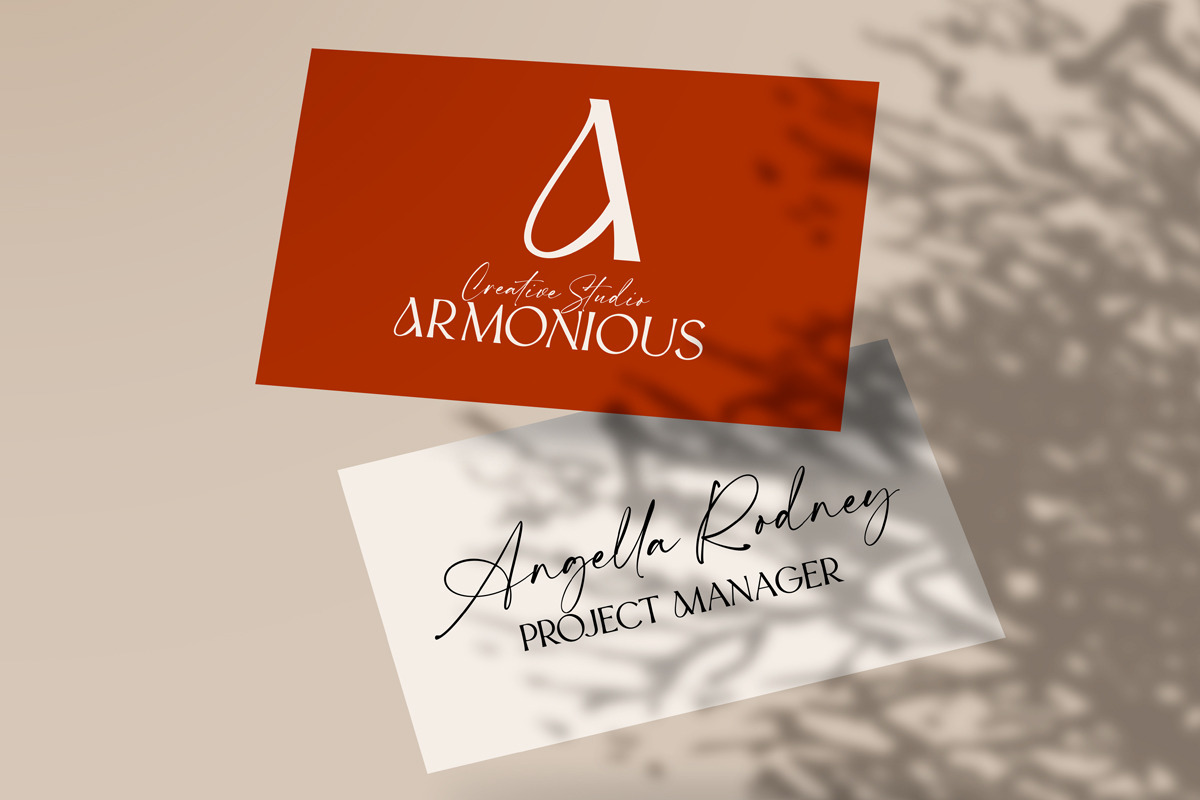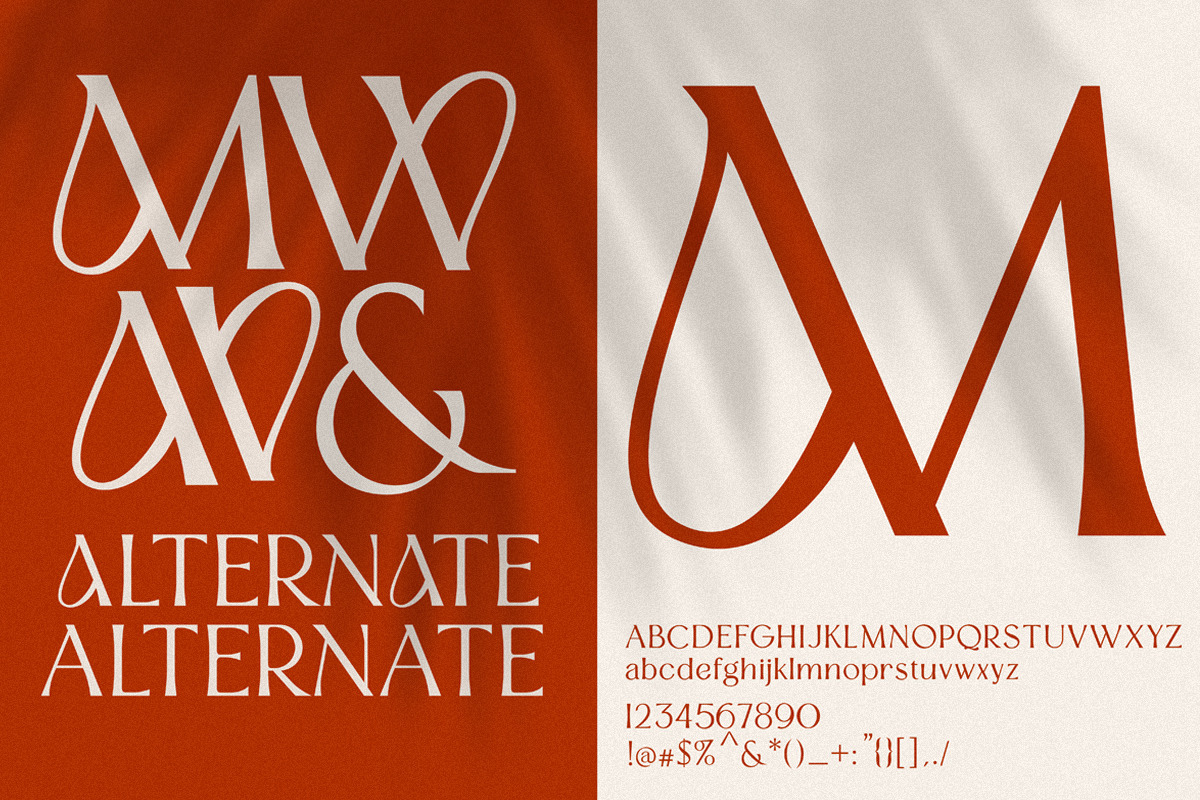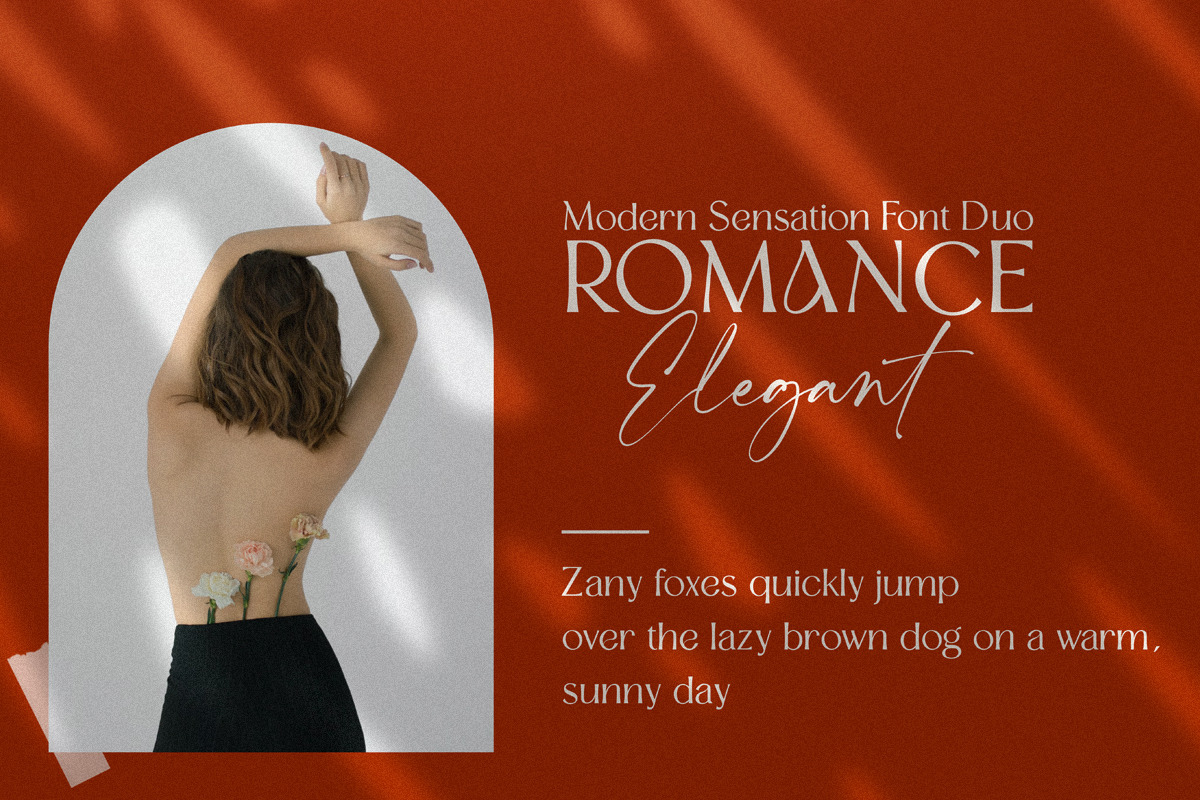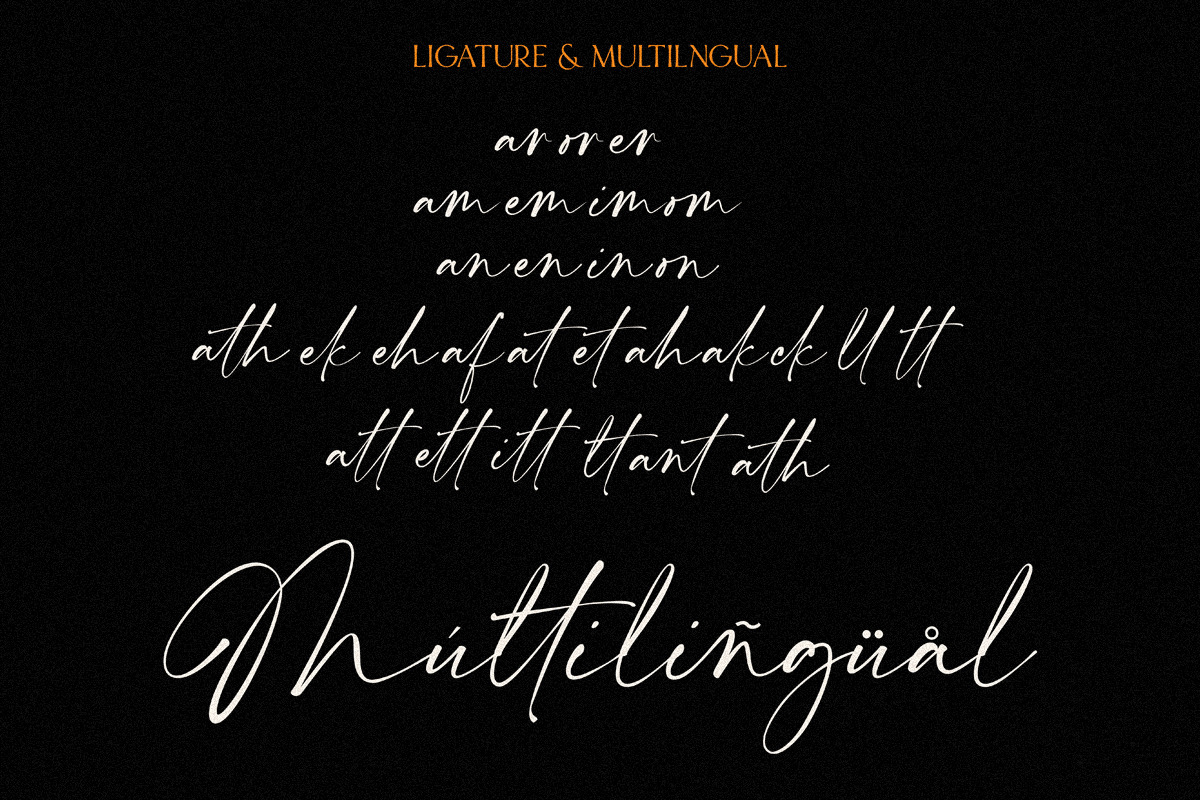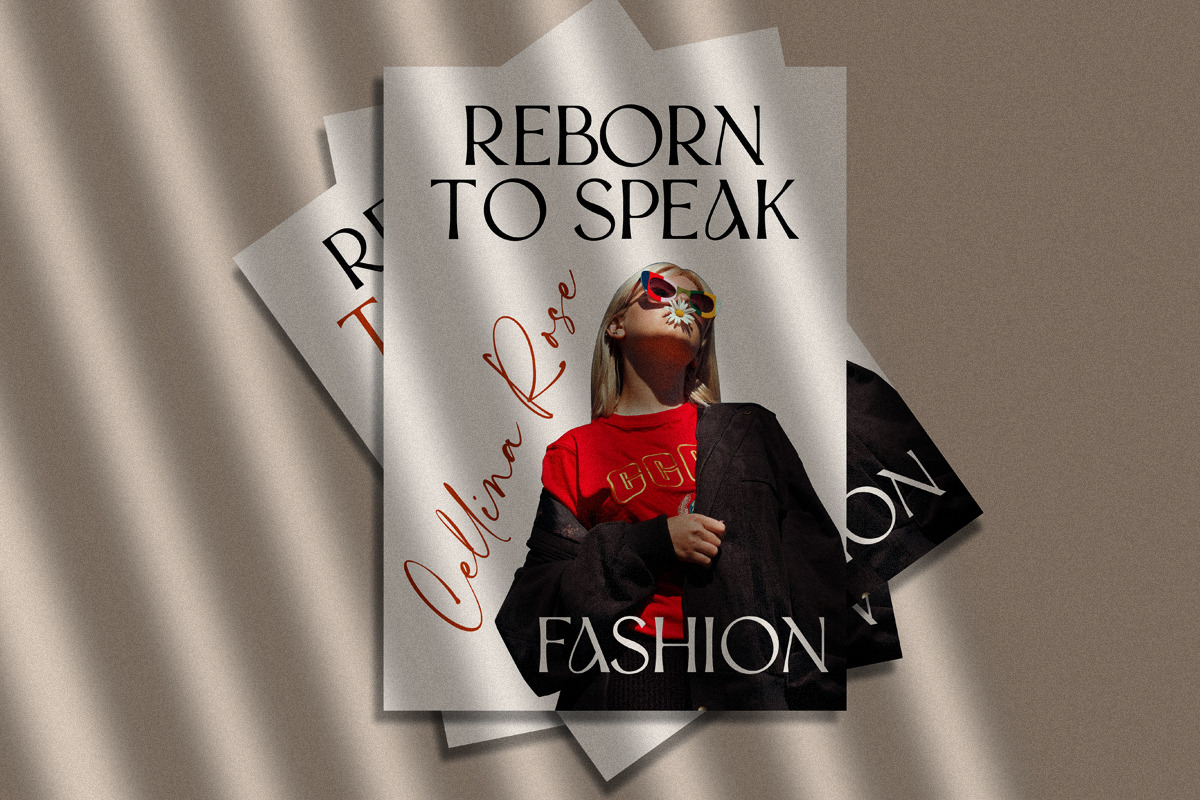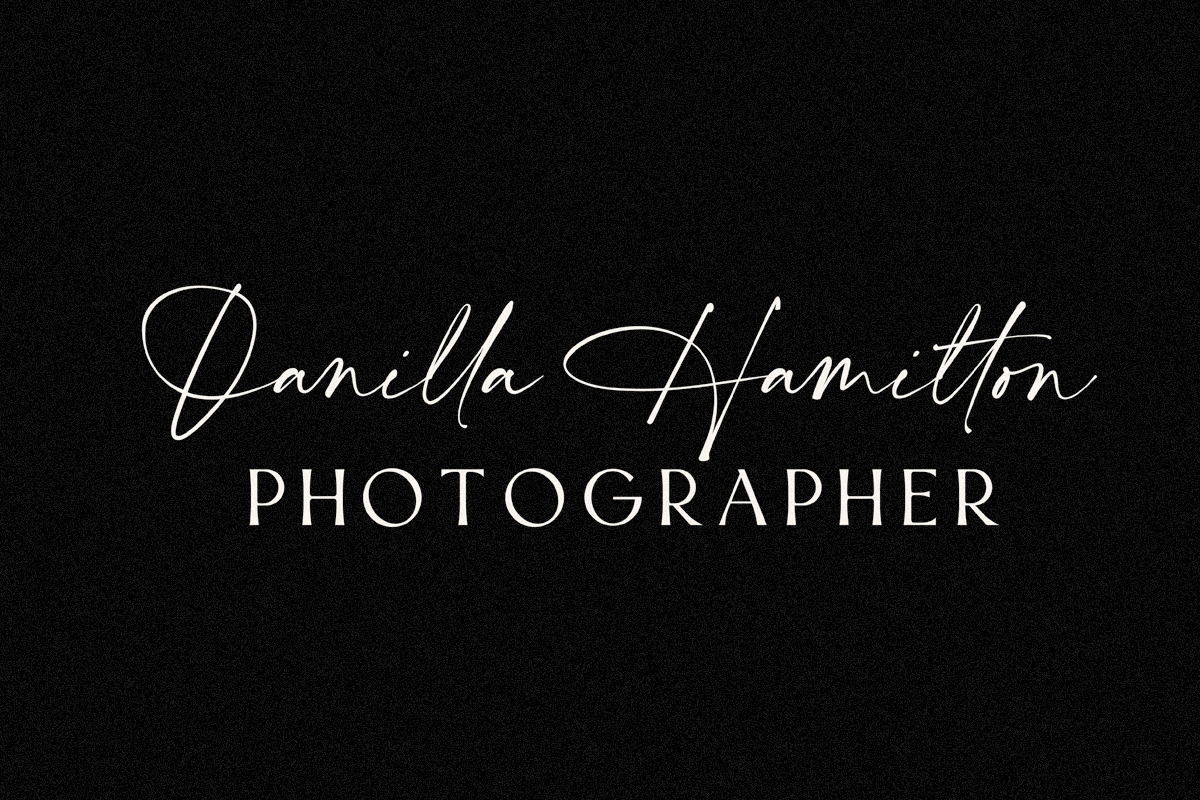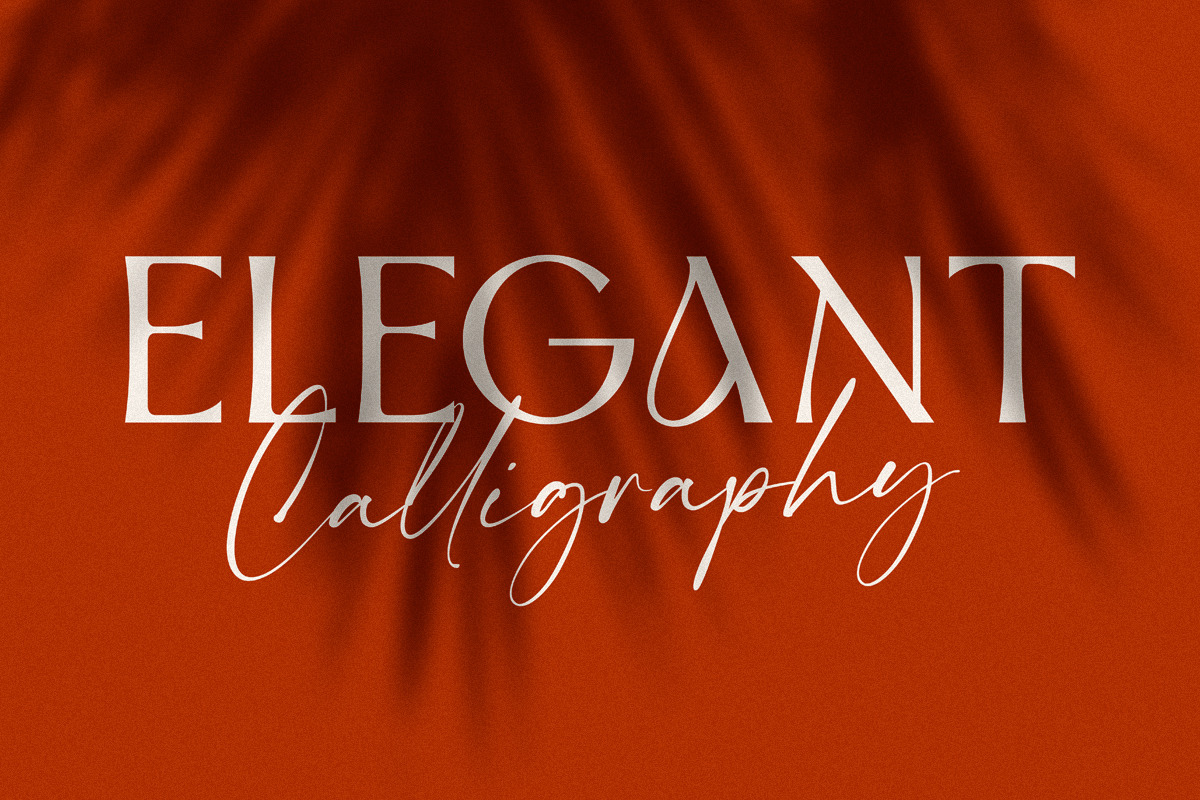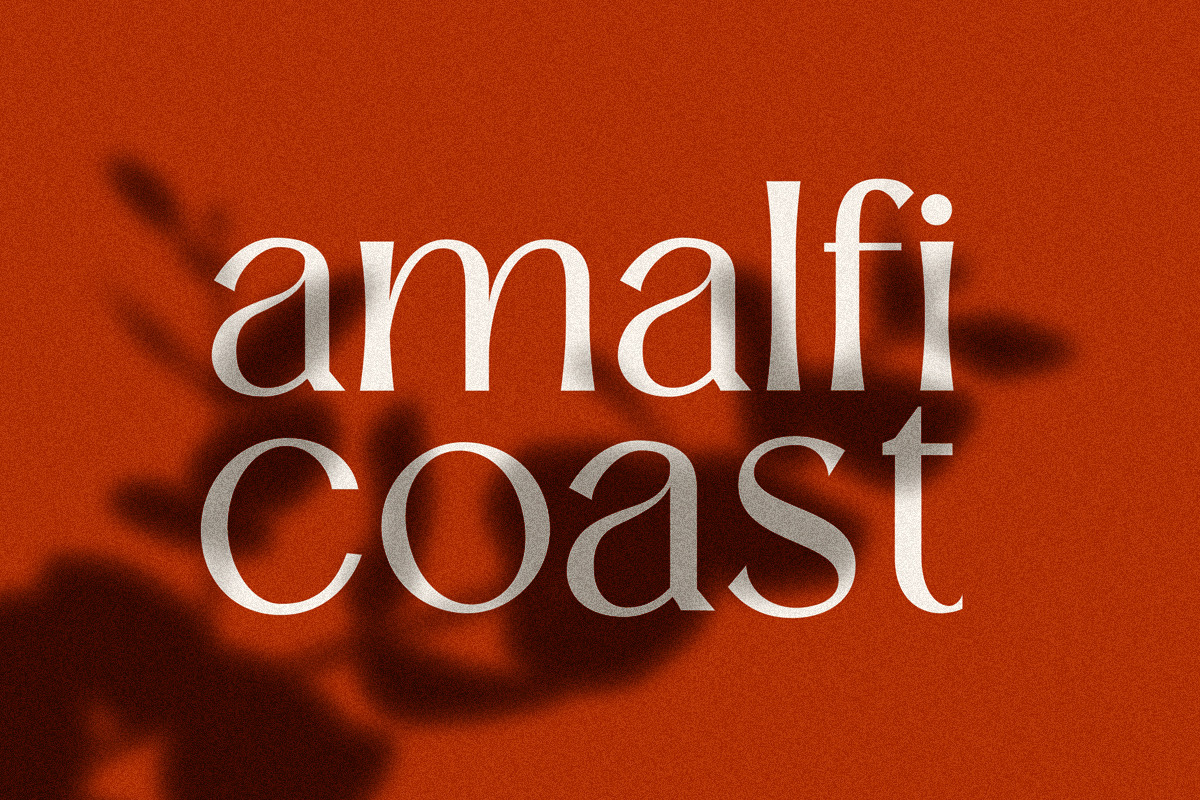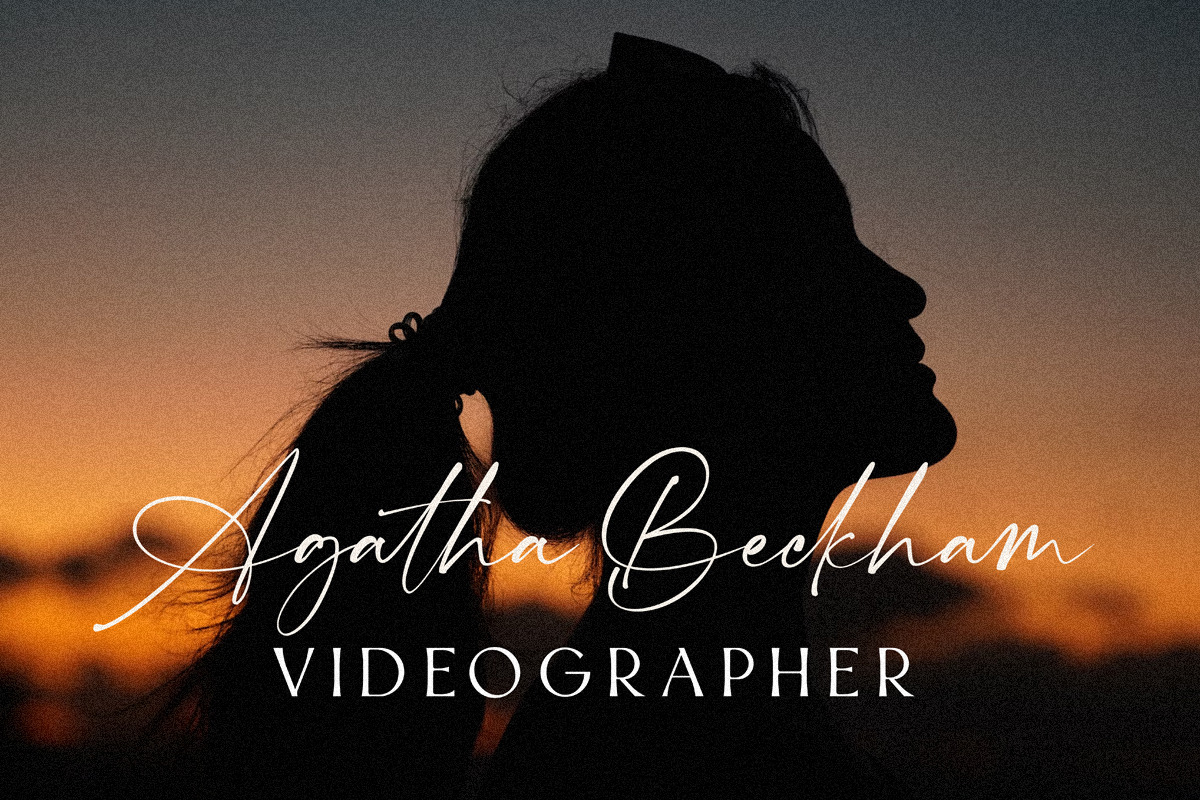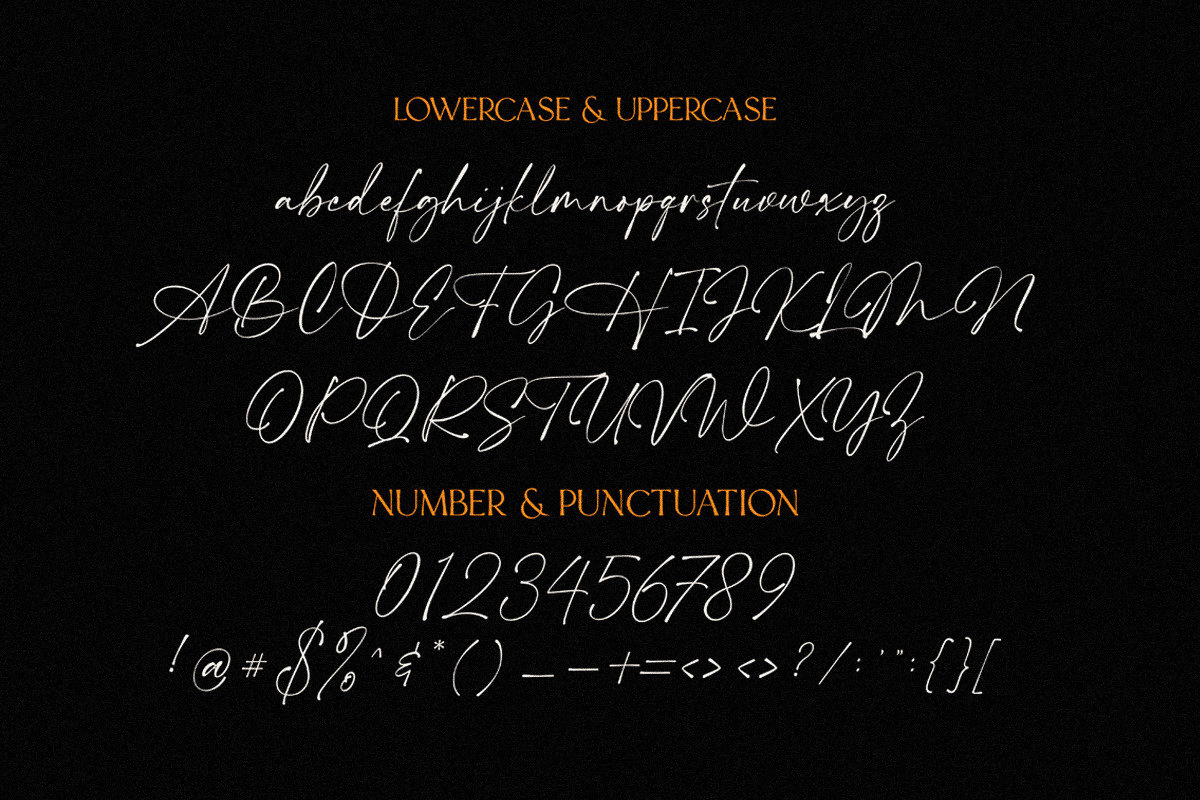
Modern Sensation | Pair Font
Modern Sensation – Where Elegance Meets Versatility."
Modern Sensation is a premium duo font that seamlessly blends two distinct styles in one perfect package: a modern Sans Serif for a clean and professional look, paired with an elegant Script full of personality. This combination creates a harmonious and versatile aesthetic, perfect for various design needs.
What Makes Modern Sensation Special?
- ✅ Two Fonts in One Package – Use the Sans Serif for a minimalist touch or pair it with the Script for an elegant feel.
- ✅ Elegant & Versatile Design – Ideal for branding, logos, invitations, social media, and more.
- ✅ Multilingual Support – Includes characters for multiple languages.